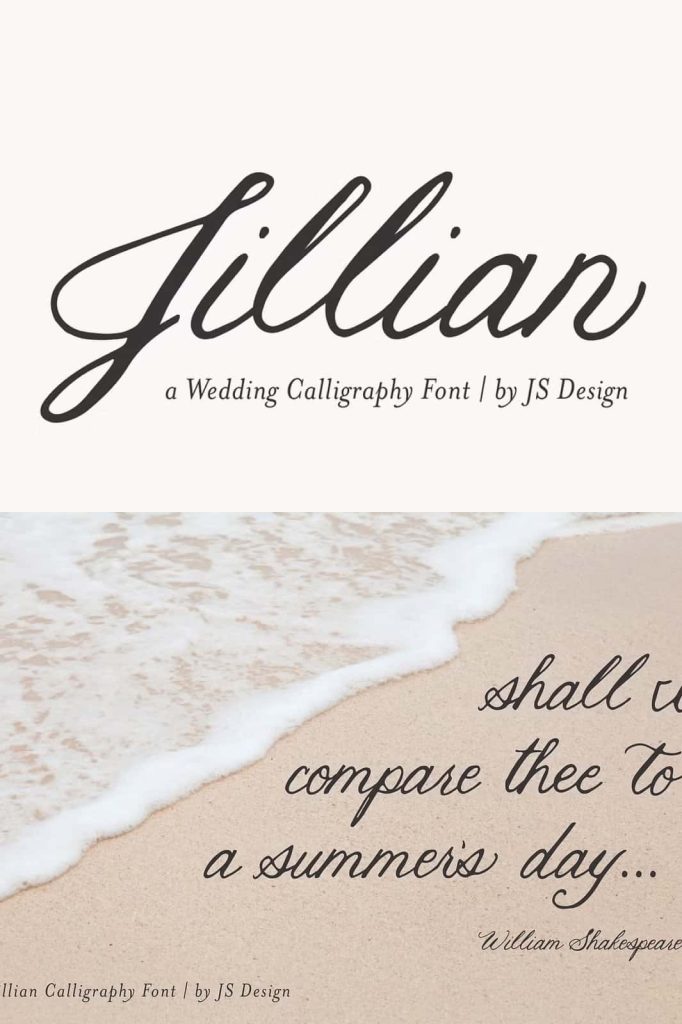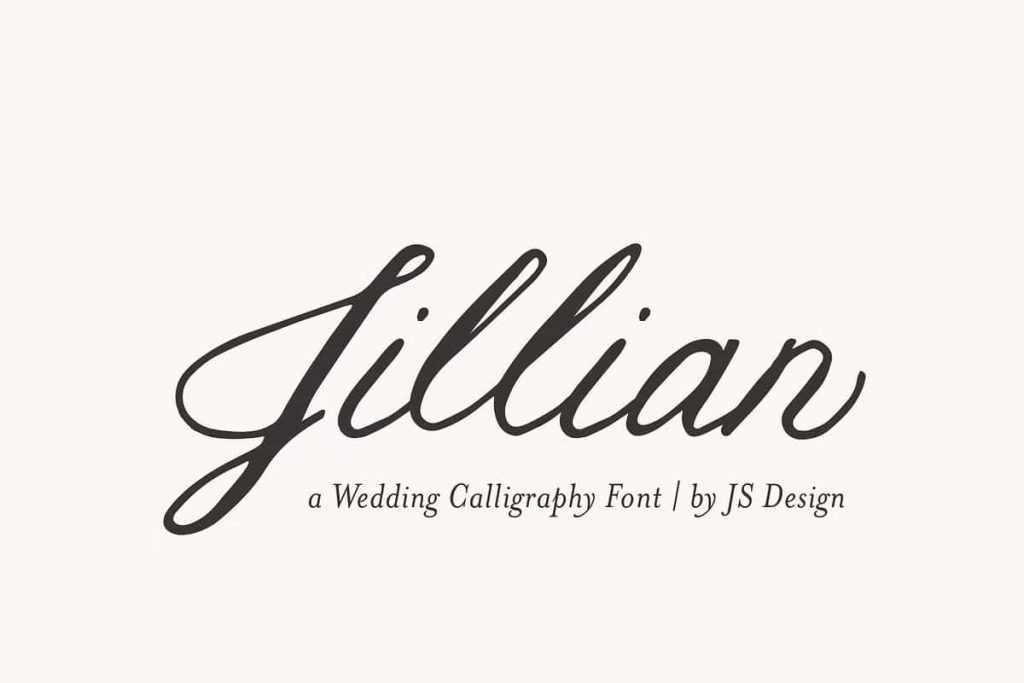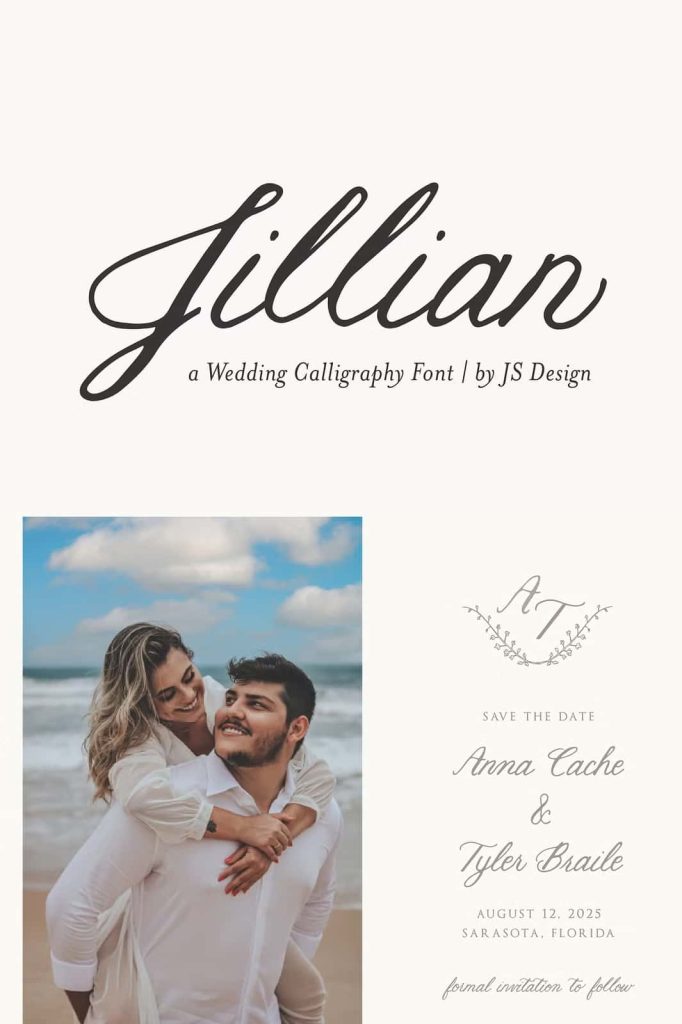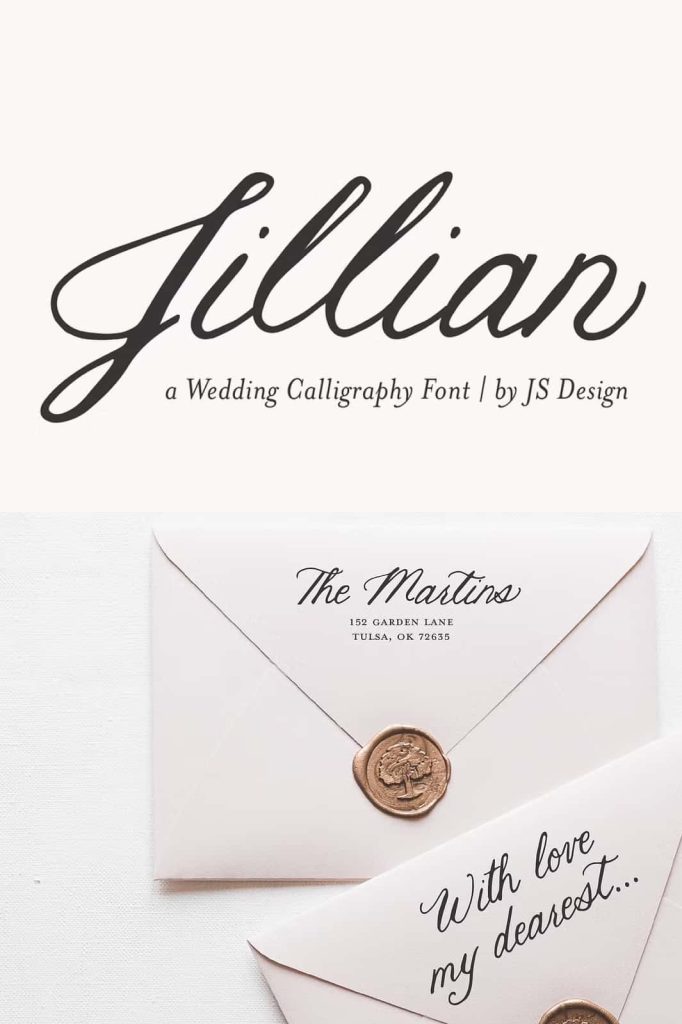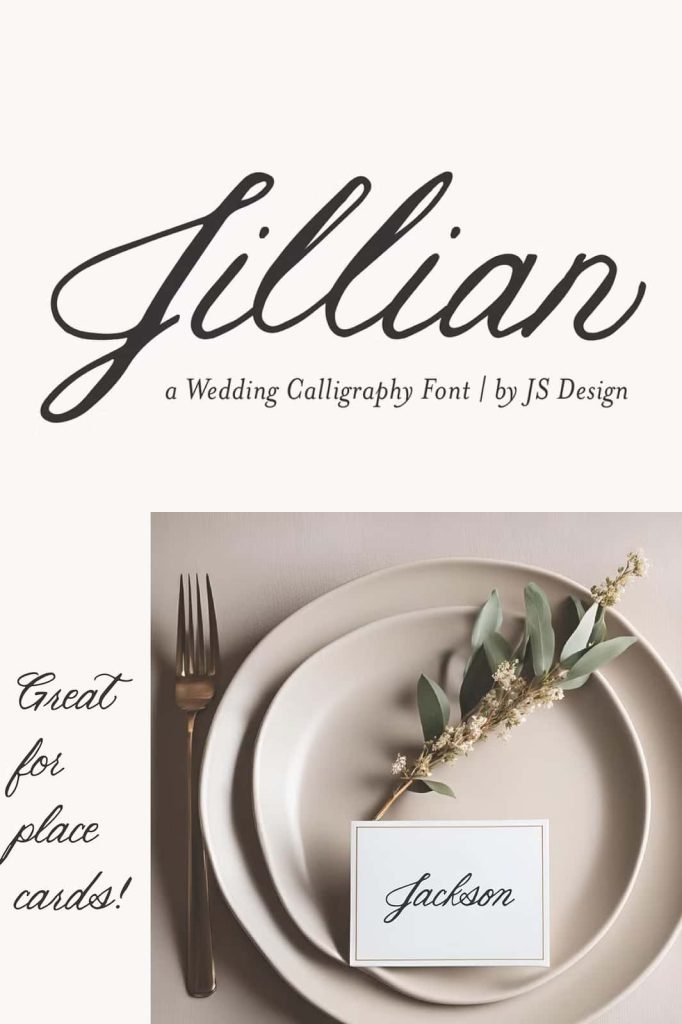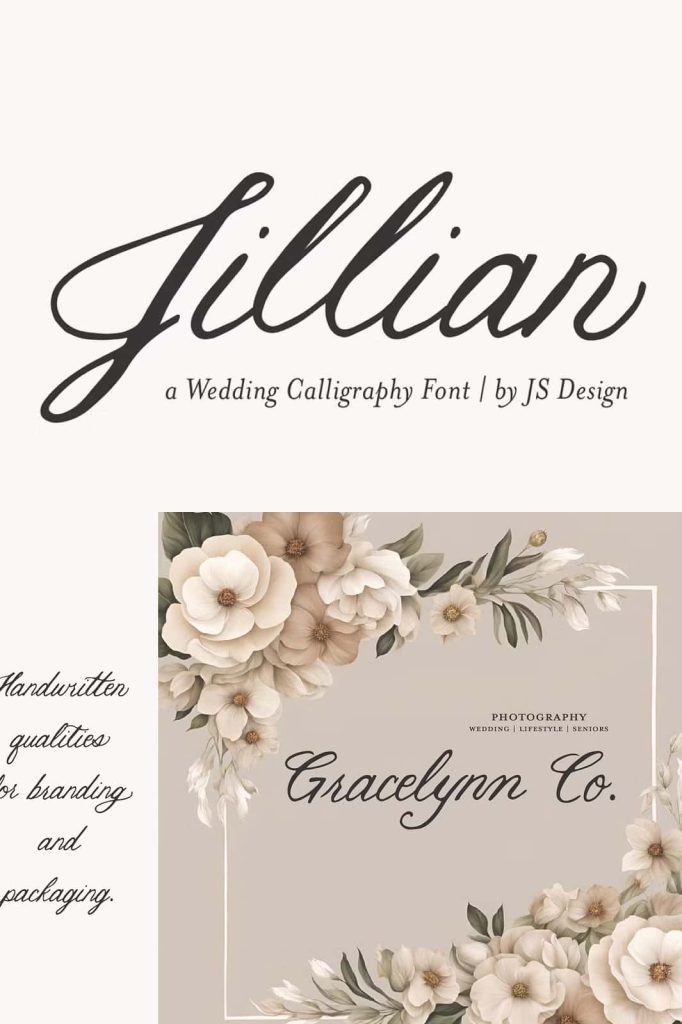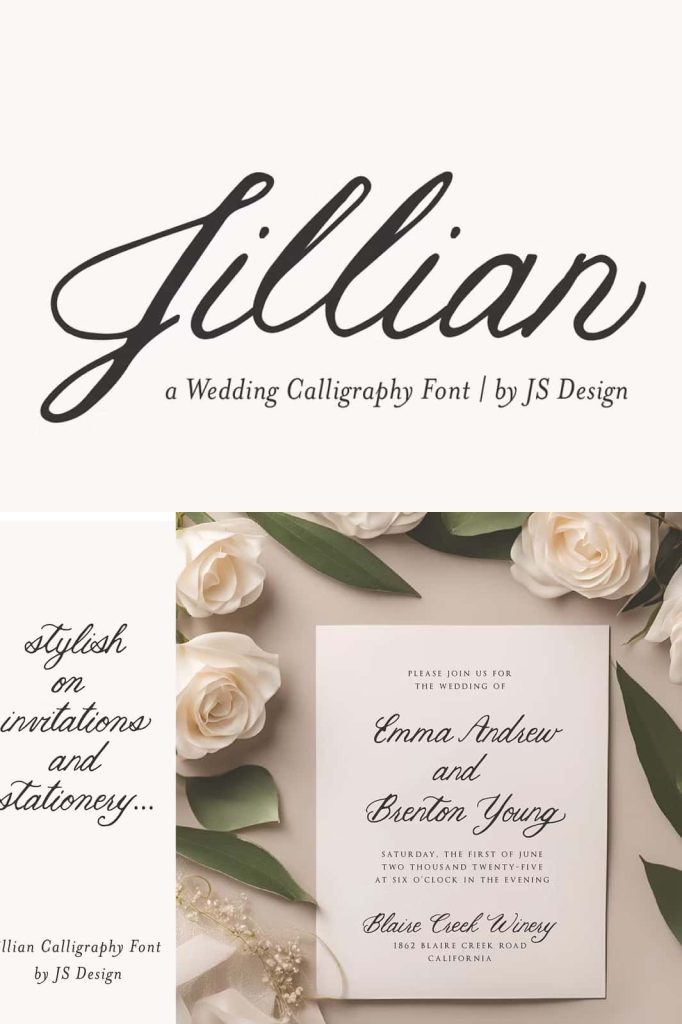
Jillian is a calligraphy font great for weddings, invitations, stationery, websites, logos, packaging, and more. It’s readable for addresses, headline text, and signage.